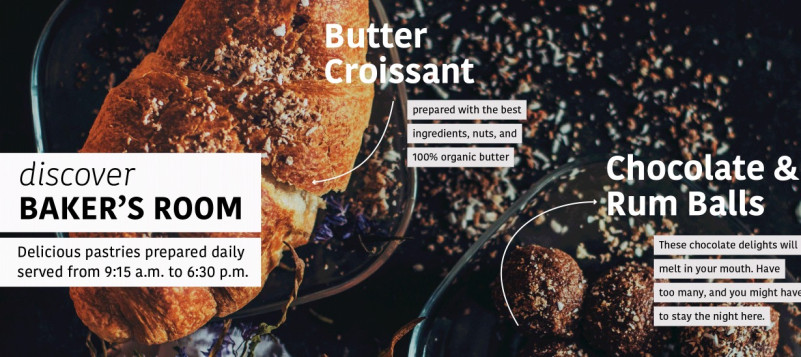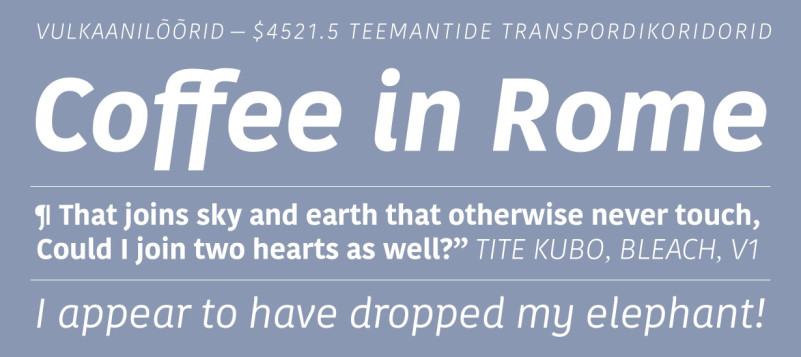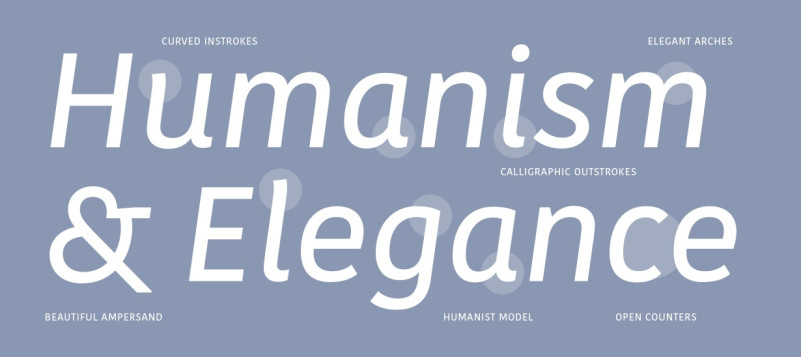
kohinoor Sans Serif Font is an elegant, low contrast humanist sans serif suitable for both body and the display text. It will be the first typeface family to support all the 9 major indian scripts, e.i, Devanagari, Gujarati, Bengali, Tamil, Malayalam, Gurmukhi, Kannada, Telugu and Oriya. Stay tuned.